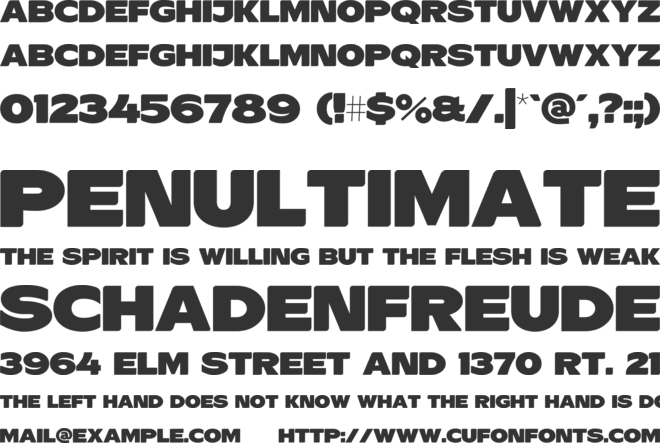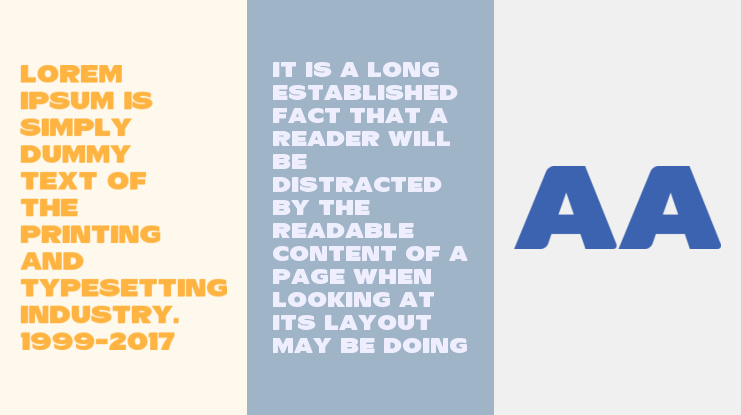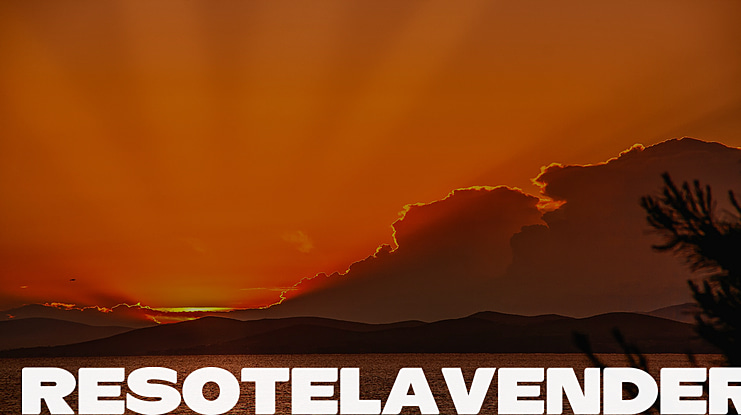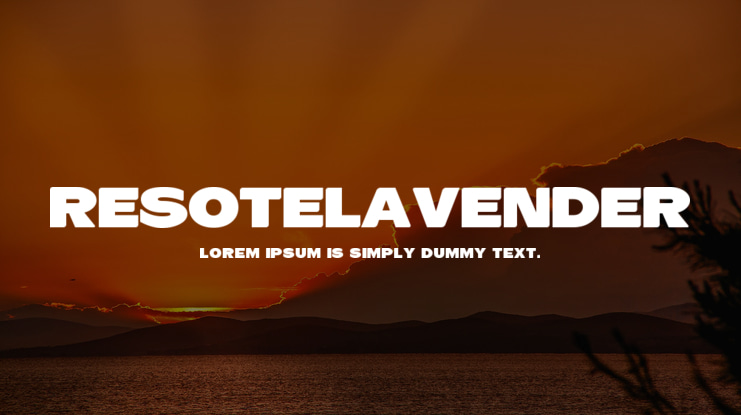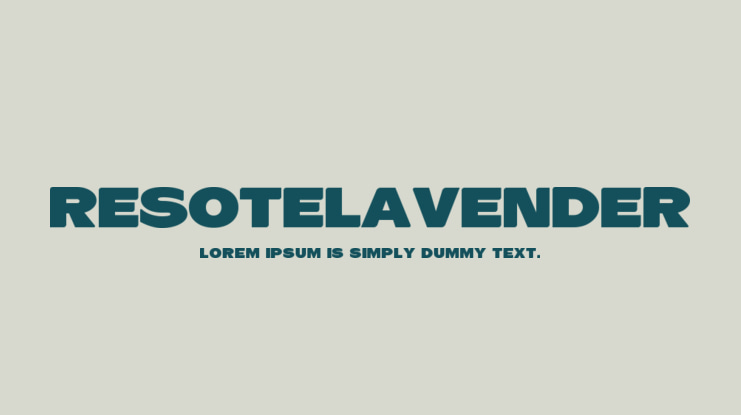
ResotELavender Font Family
ResotE-Pastels family was created inspired by the poetry of natural colors: the elegance of Pearls and romanticism of Lavender. Fully vector color Letters allow you to create any size headers, banners or advertising slogans. Because of the predefined pastel colors, of course, fonts work best on darker backgrounds. Automatic contextual alternates and ligatures built into the fonts compensate for whitespace area differences. Normal TTF ResotE (AllCaps) font is included in the package, which allows you to create text in smaller sizes in style of the ResotE family.